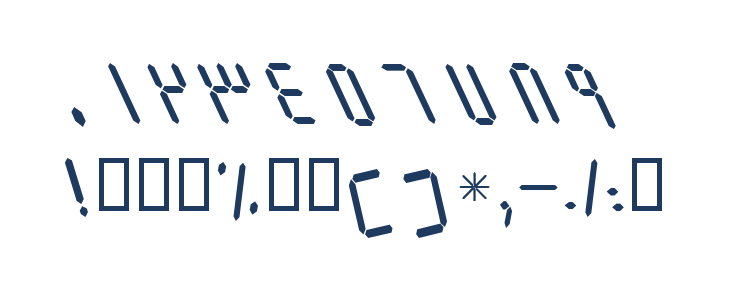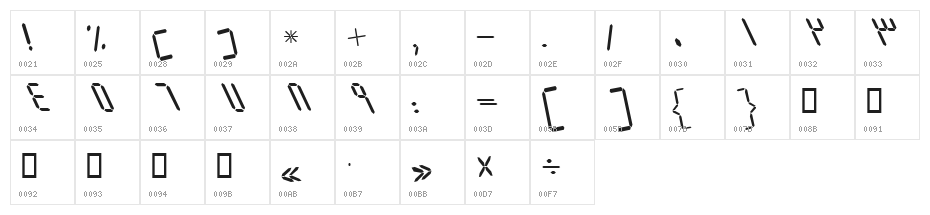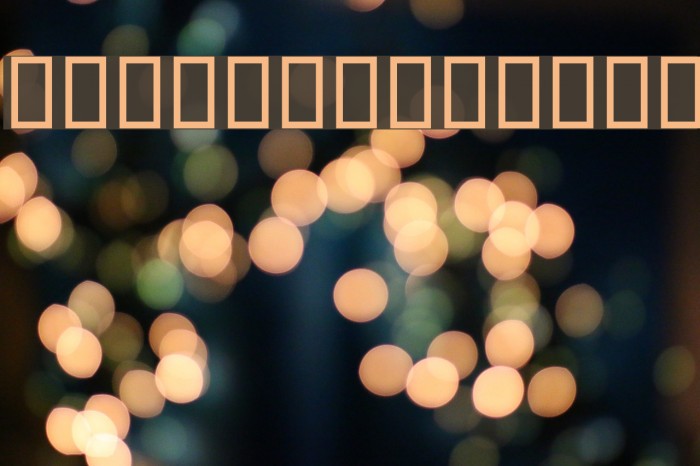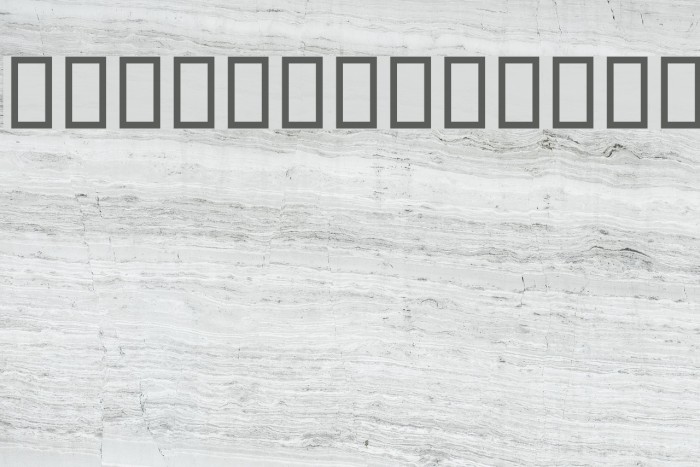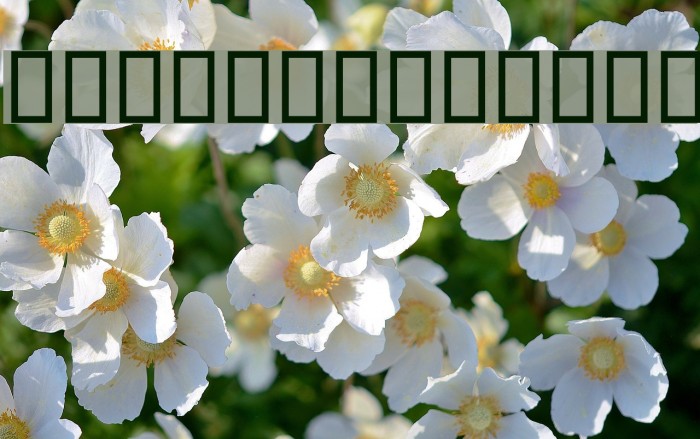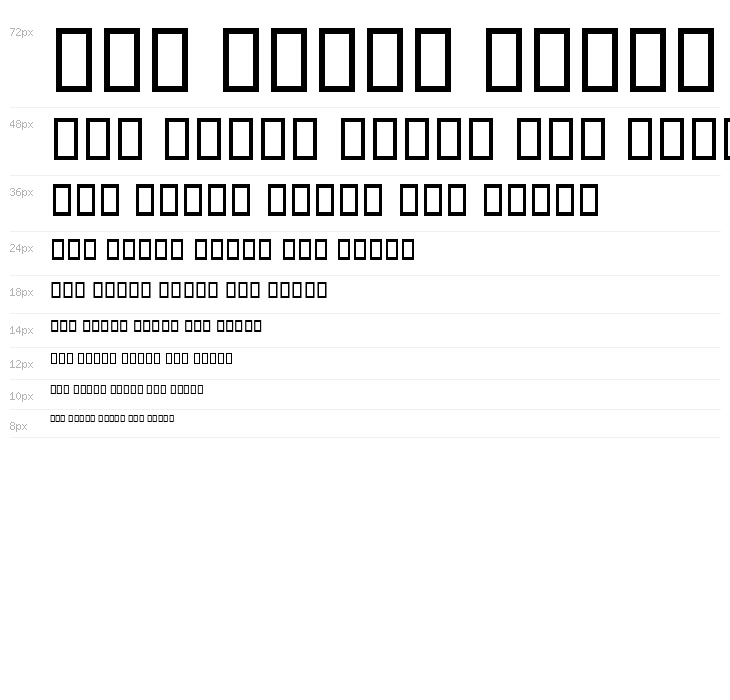
Elm Italic Font
Elm Italic Description
This font features a distinct, angular design with a futuristic and digital aesthetic. The characters are composed of straight lines and sharp angles, giving it a geometric and technical appearance. The style is reminiscent of digital displays or stencil-like lettering, with a consistent slant that adds a dynamic and italicized feel. The uppercase and lowercase letters maintain a uniform width, contributing to a monospaced look, while the numbers and special characters follow the same angular theme. The overall design is bold and striking, making it suitable for projects that require a modern and edgy typeface.
| Proposed Projects | Ideal for technology branding, digital interfaces, video game graphics, and sci-fi themed projects. |